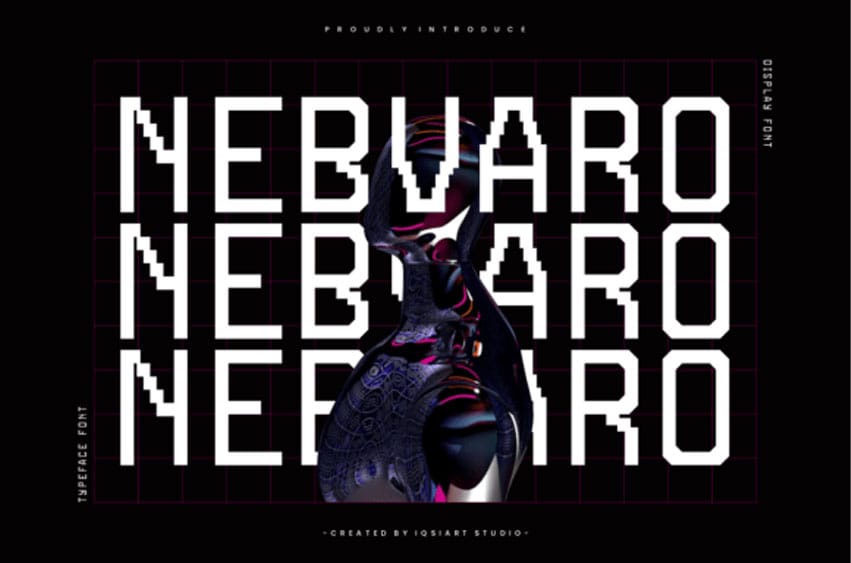
Nebvaro Font is a futuristic techno display font that fuses digital minimalism with pixel-inspired geometry. Built with sharp angles, modular shapes, and squared-off curves, this typeface echoes the aesthetics of retro arcade screens and early computer interfaces. Each character maintains a strict grid-based logic, giving the font a digital pulse that feels both nostalgic and experimental.
The visual rhythm created by its tall, narrow structure and stylized interruptions—like the jagged “S” and stepped “N”—reinforces its glitch-era identity. Nebvaro is ideal for tech branding, gaming graphics, music visuals, virtual event posters, and digital art that calls for bold typographic innovation.